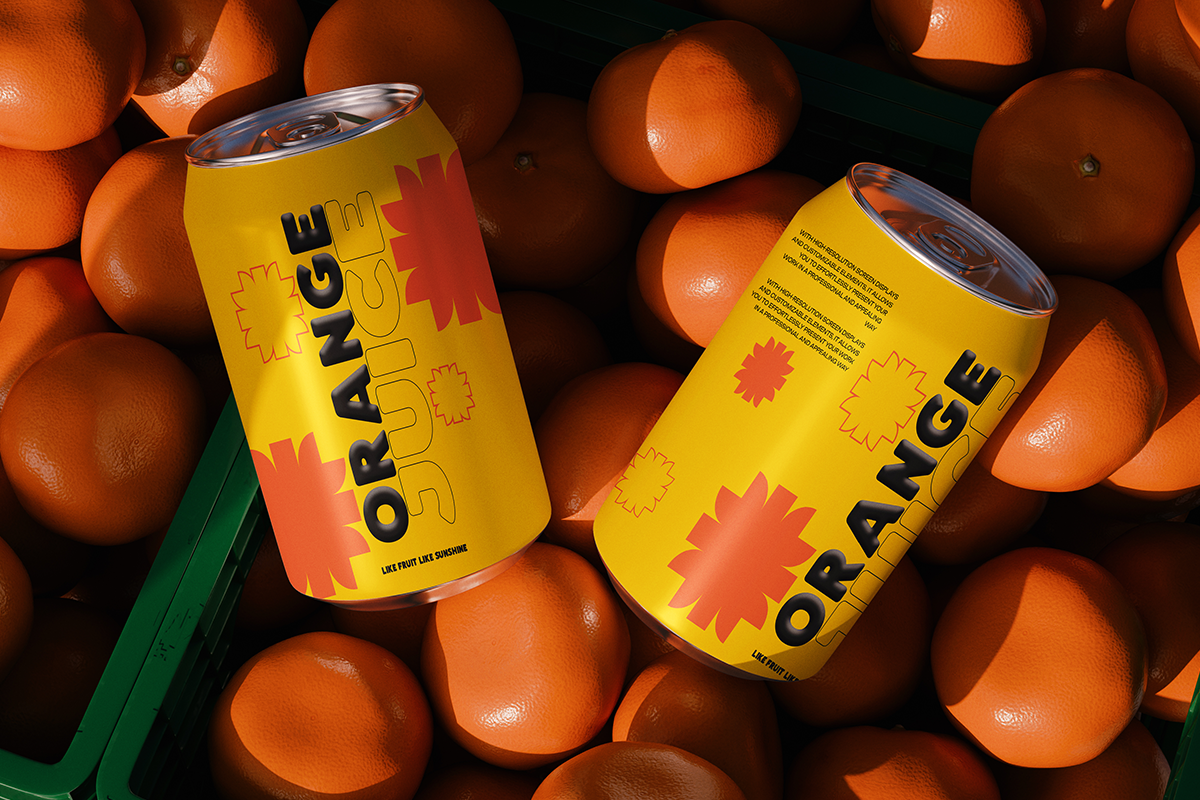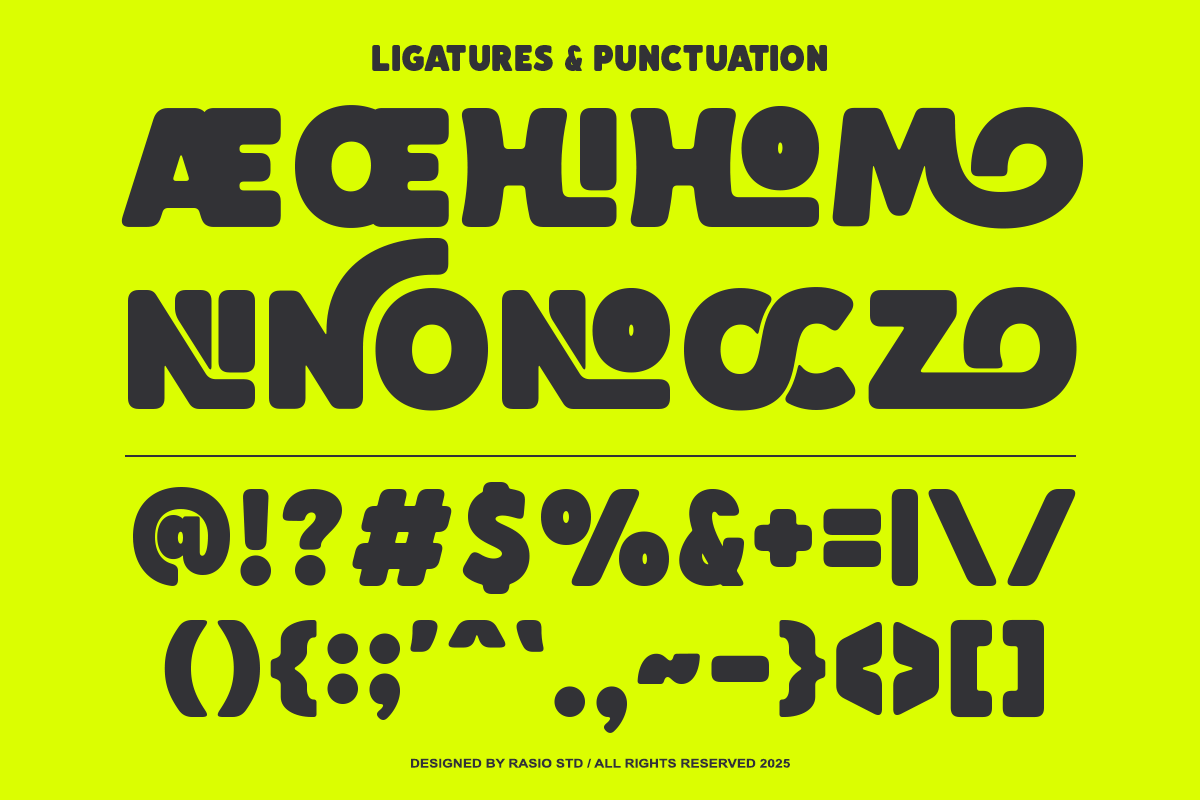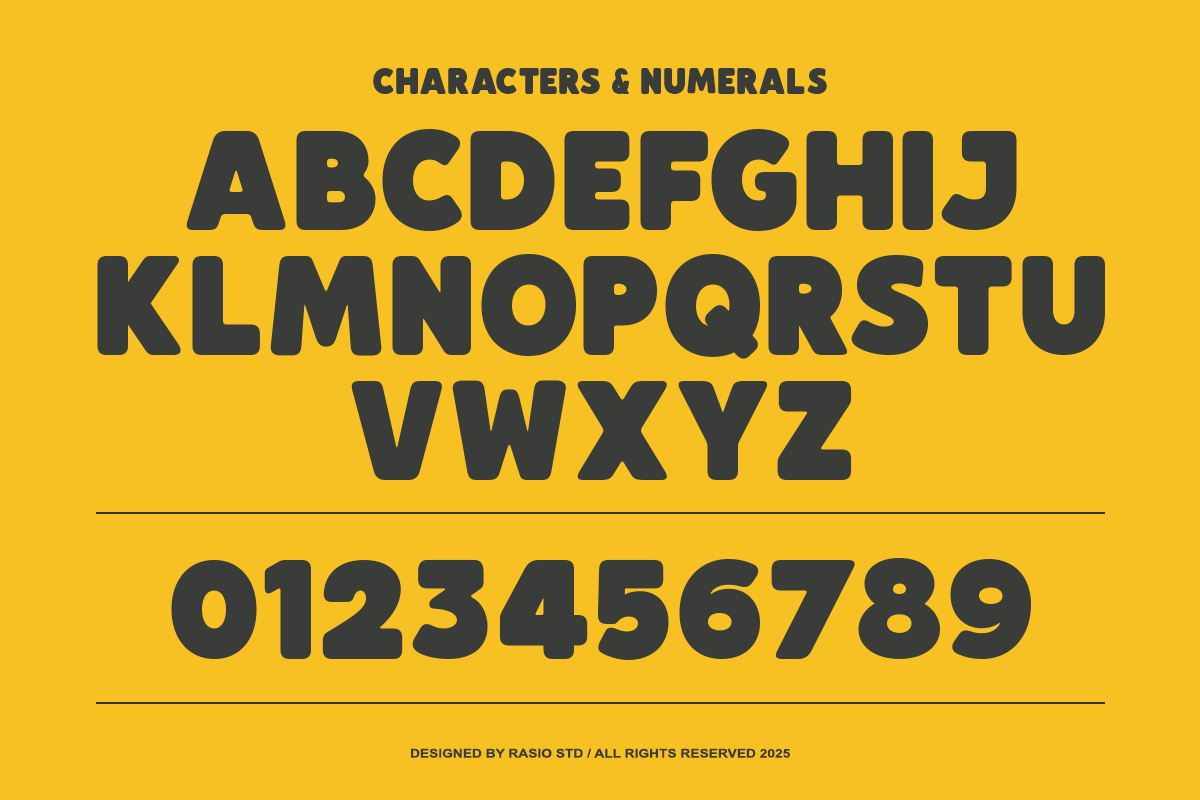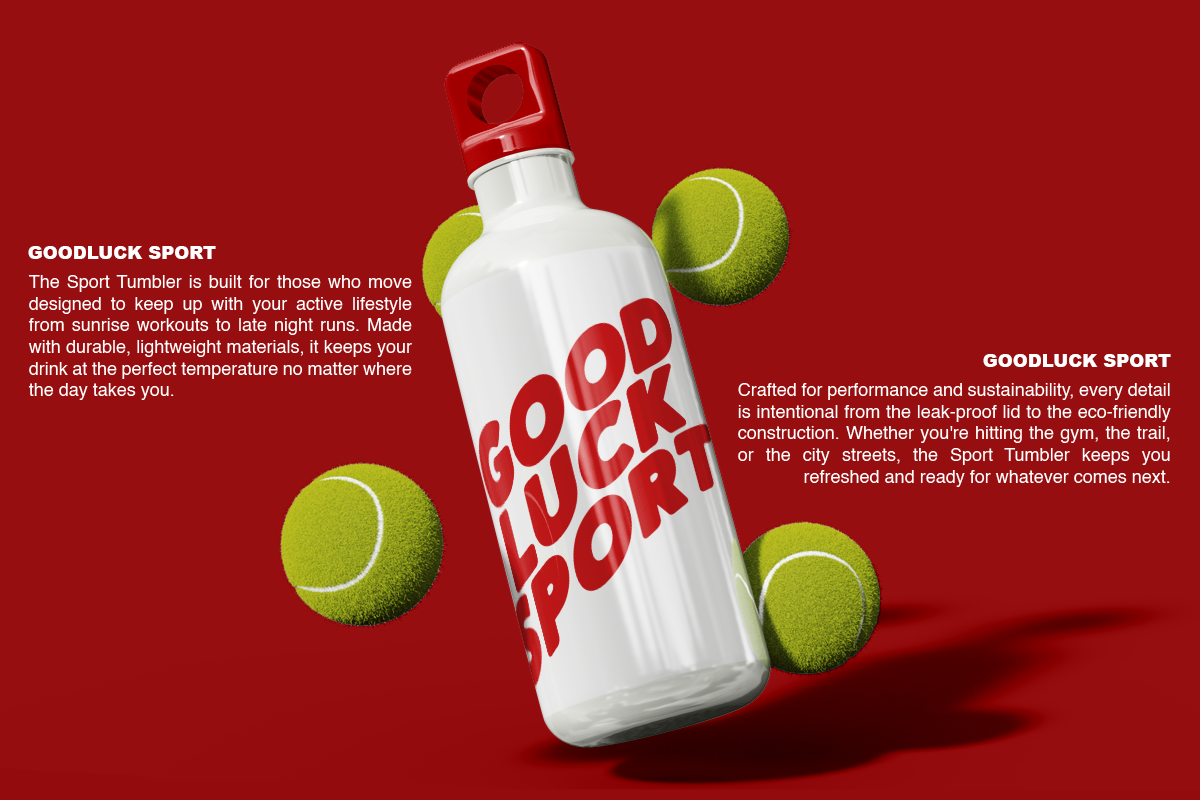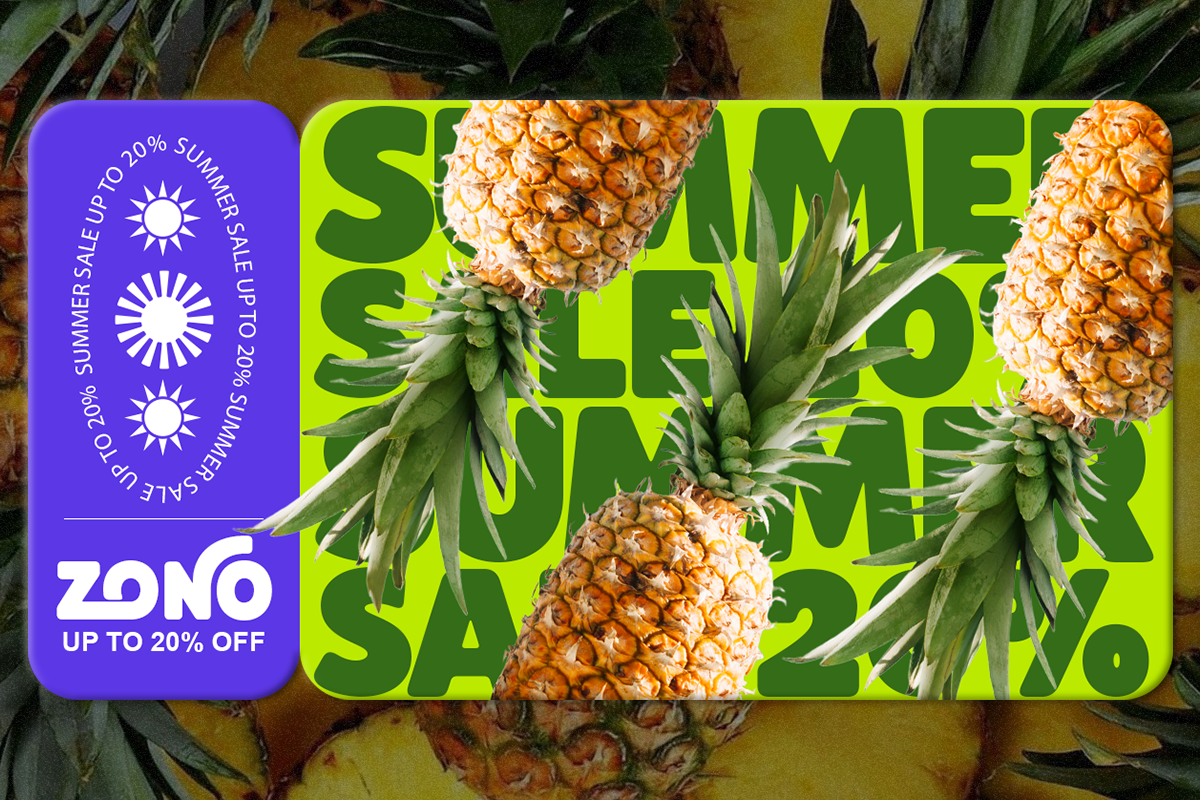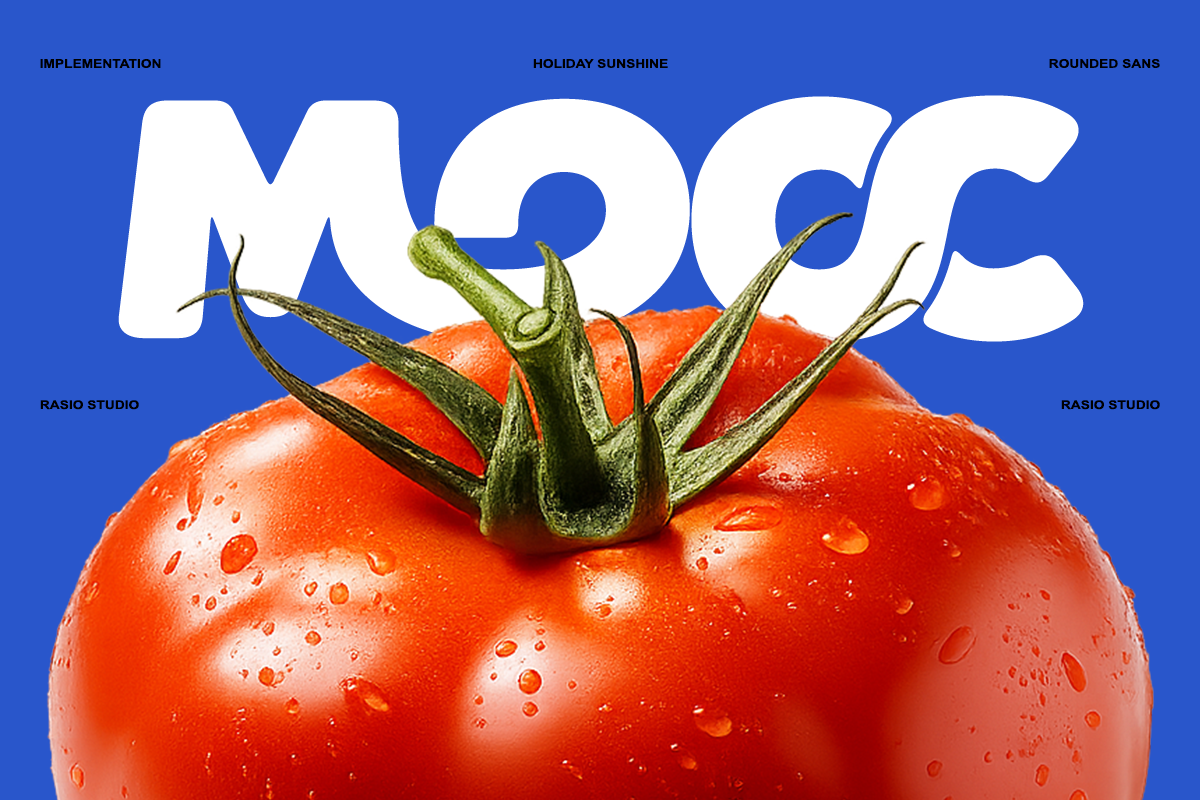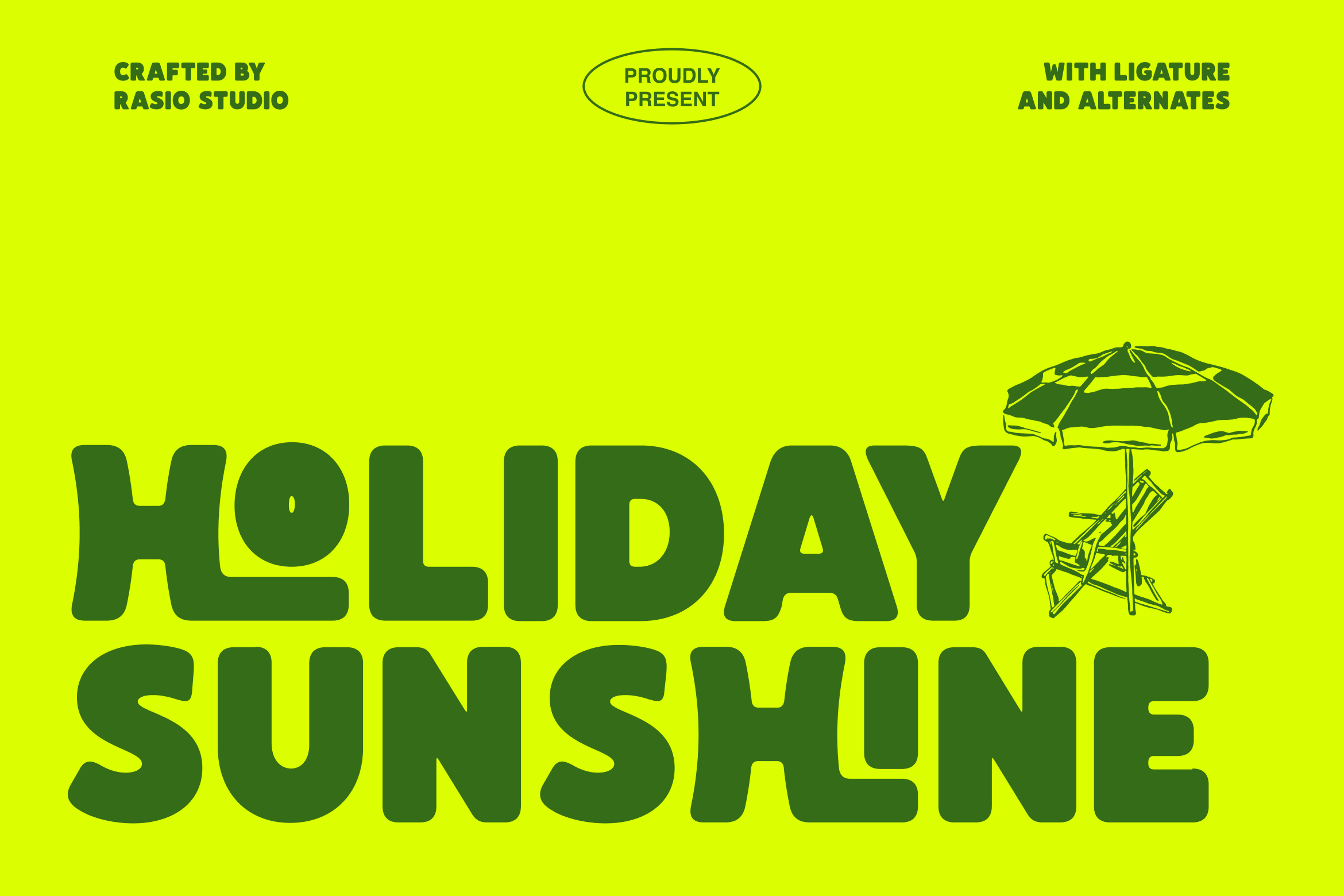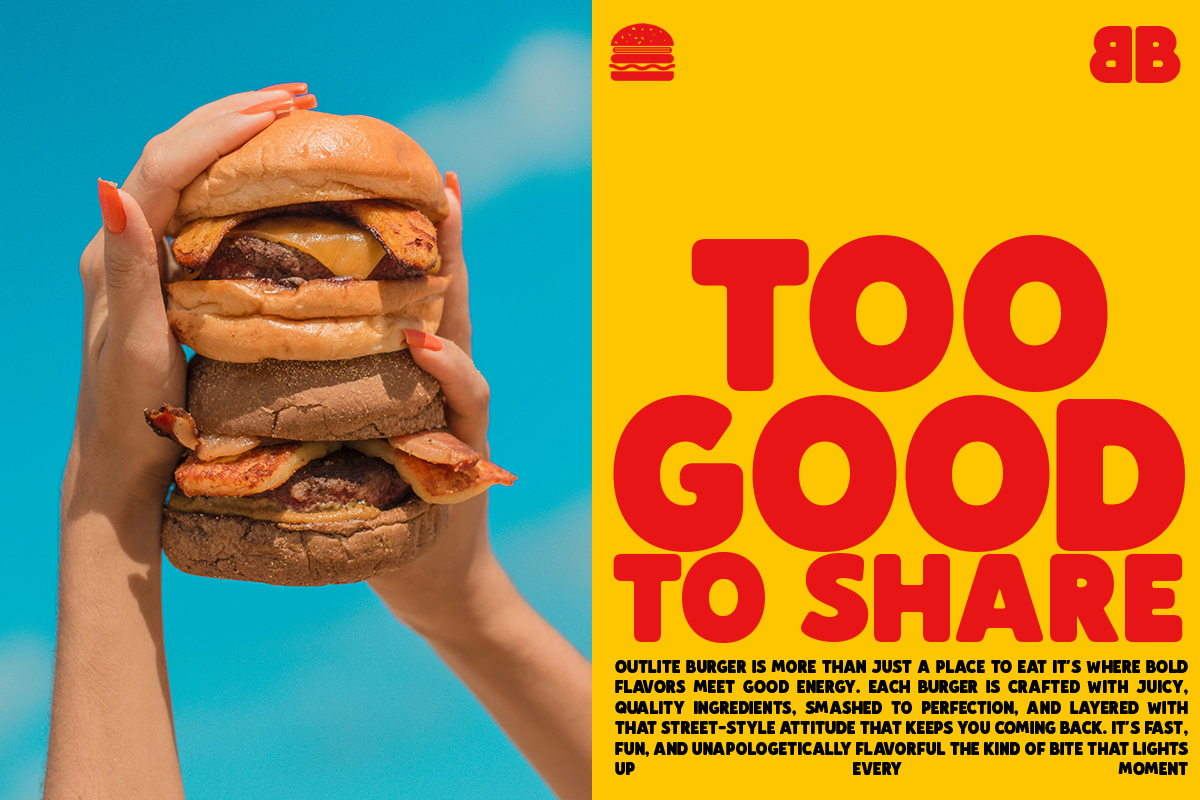
Holiday Sunshine Bold Sans Font
Holiday Sunshine is a bold, rounded display font designed to radiate warmth, fun, and cheerful energy. Inspired by summer vibes, beach holidays, and playful branding, this typeface features thick curves, smooth edges, and friendly proportions that instantly grab attention. Its soft geometric structure combined with bold weight creates a confident yet approachable personality. The font includes uppercase, numerals, punctuation, ligatures, and alternates making it flexible for creative headlines and expressive layouts.
Holiday Sunshine is ideal for summer campaigns, beach branding, travel promotions, kids products, café menus, packaging design, festival posters, lifestyle brands, social media graphics, and cheerful logo projects. Its bold and rounded personality makes it perfect for designs that aim to feel warm, energetic, and instantly eye-catching.
- Bold rounded display structure with thick, confident letterforms
- Playful curved shapes that create a warm and cheerful personality
- Soft terminals and smooth edges for a friendly visual tone
- Strong geometric foundation balanced with expressive alternates
- Custom ligatures that enhance flow and visual uniqueness
- Summer and holiday branding projects that need bold, cheerful energy
- Travel campaigns, beach events, and festival promotions
- Kids products, playful packaging, and lifestyle brands
- Eye-catching posters, merchandise, and headline designs
- Social media graphics and digital ads that need strong visual impact